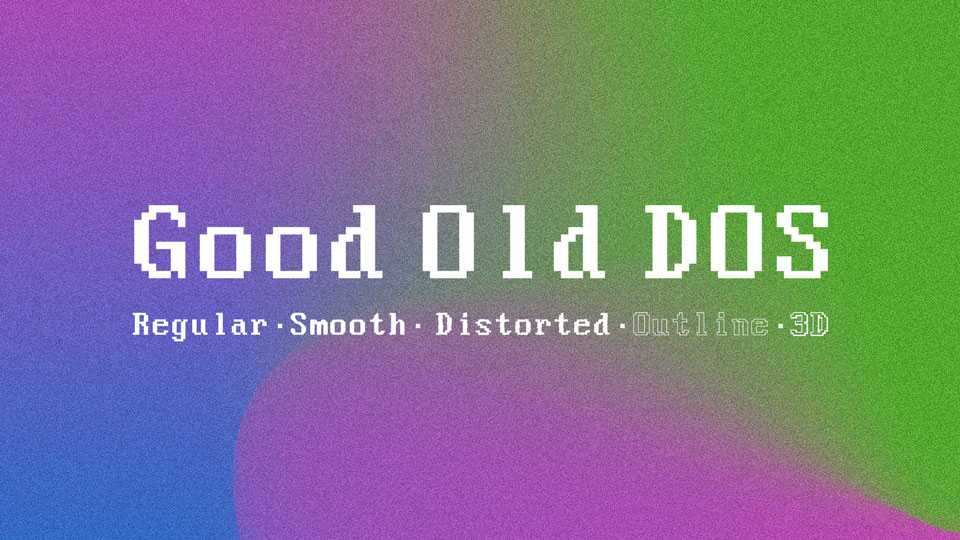
Download Good Old DOS font, a nostalgic homage to the classic and iconic typeface used in the early DOS interface. This font evokes a sense of computing history, capturing the simplicity and functionality of the original DOS system typeface.